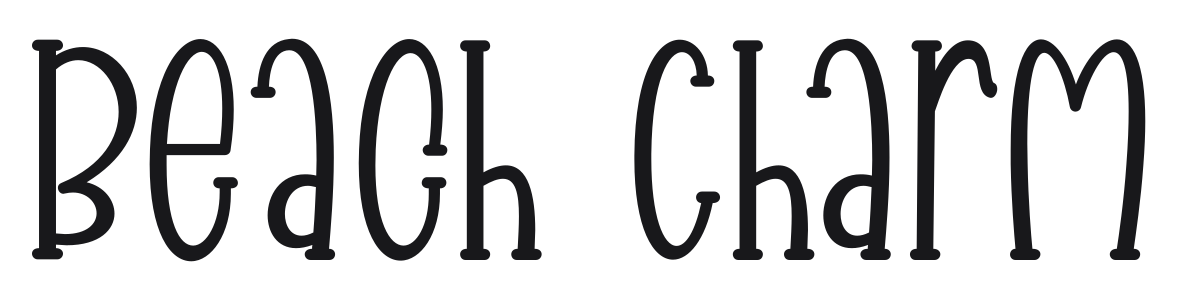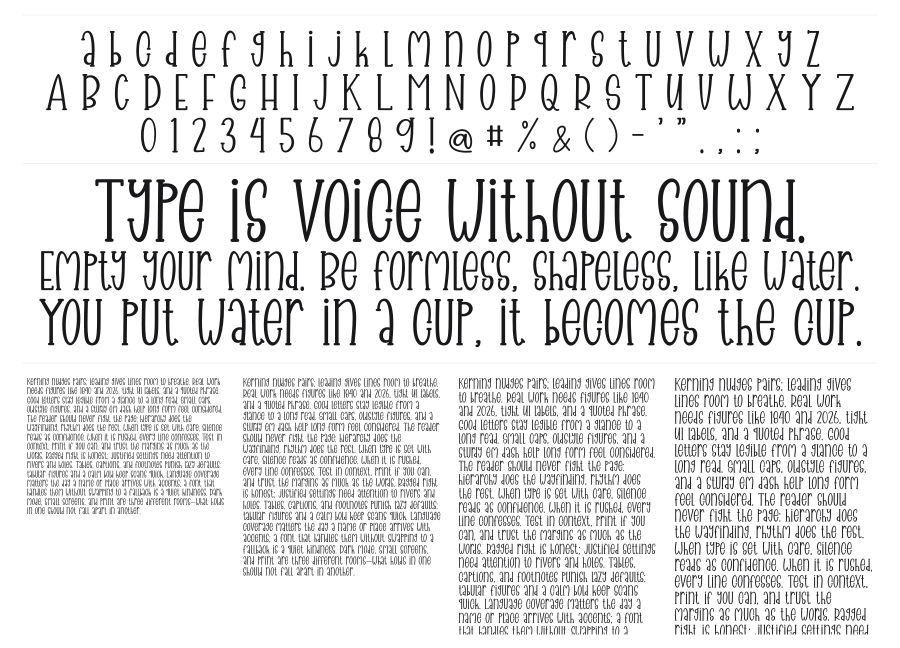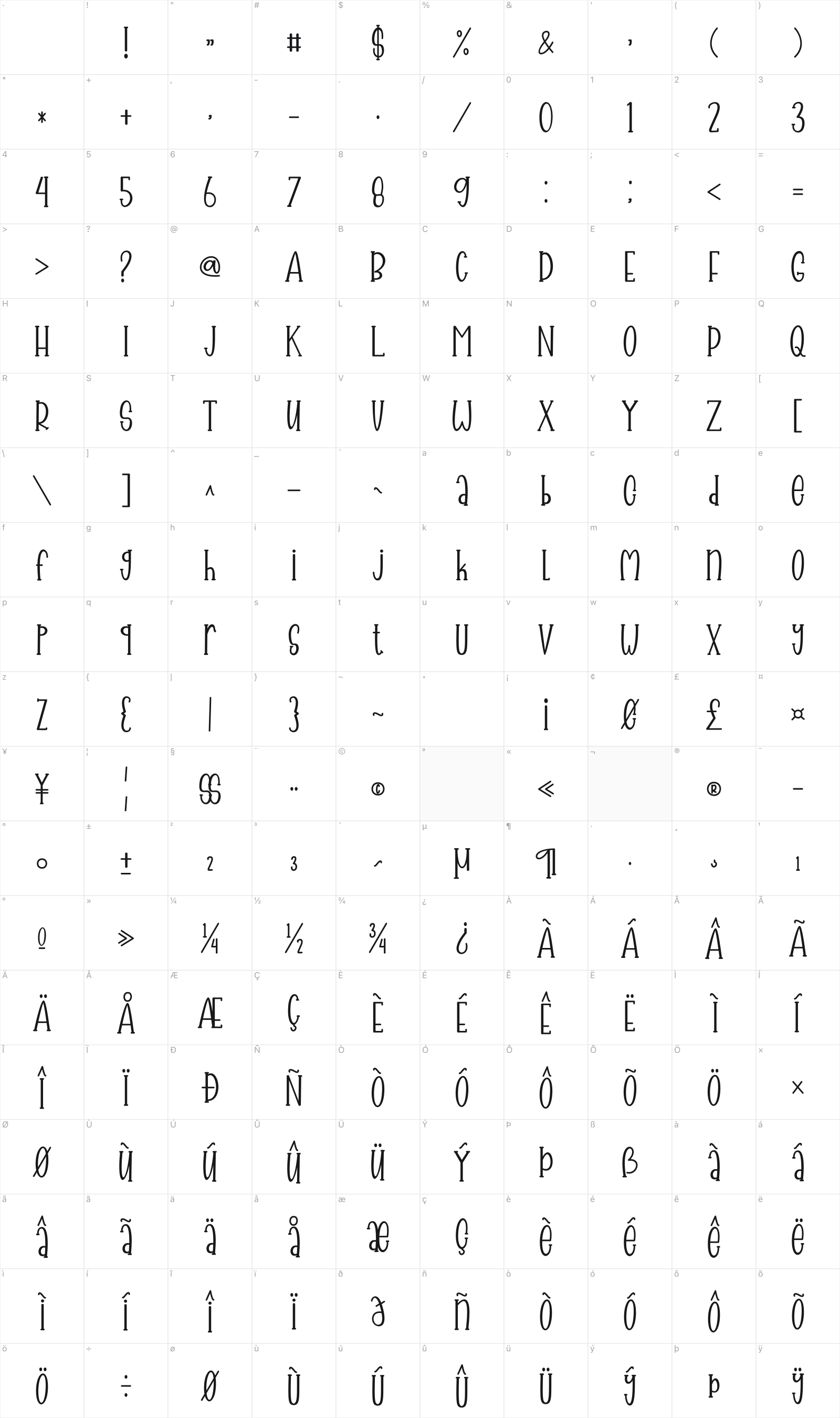
Beach Charm
Beach Charm is a tall, condensed display font with a quirky hand-lettered personality and distinctive teardrop terminals on its strokes. The narrow proportions and organic rhythm give it a relaxed, craft-sign quality that reads immediately as summer or coastal. It draws attention without trying too hard.